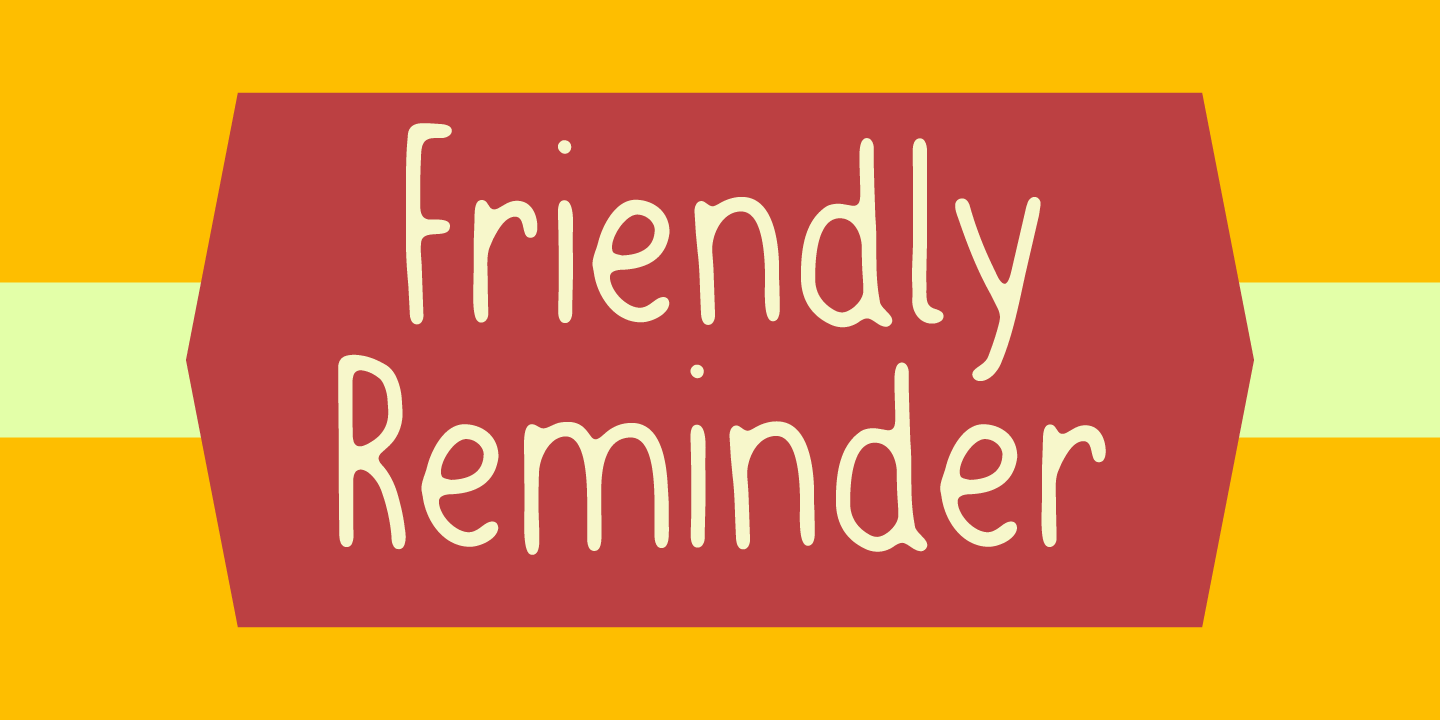
The Friendly Reminder Font excels in various design applications including gentle notification designs, warm reminder card layouts, friendly appointment communications, kind healthcare messaging, gentle billing notices, approachable customer service materials, caring reminder signage, soft notification systems, thoughtful memory aid designs, and considerate communication projects that demand friendly warmth and reminder sophistication.
What makes the Friendly Reminder Font exciting is its perfect embodiment of gentle communication and thoughtful reminder culture through letterforms that capture the essence of caring notifications and the warm approach of considerate messaging systems. This typeface demonstrates exceptional approachability through carefully crafted characters that suggest the gentle tone of friendly reminders, the caring nature of helpful notifications, and the thoughtful consideration that makes reminder communications feel supportive rather than demanding. The font's caring personality makes it perfect for healthcare organizations and customer service companies seeking to communicate gentle persistence, friendly helpfulness, and the kind of warm consideration that makes necessary reminders feel genuinely caring through typography that literally whispers with friendly consideration.
The Friendly Reminder Font family typically includes gentle weight variations that enhance the approachable aesthetic, featuring soft styling options and extended character sets optimized for notification communications and reminder applications. These family options often include caring alternates, gentle symbols, and thoughtful decorative elements that provide designers with comprehensive tools for creating authentically friendly typography that celebrates considerate communication while maintaining contemporary design appeal and professional credibility.
Customer service professionals and healthcare organizations consistently select Friendly Reminder Font Free Download for projects requiring typography that communicates gentle persistence and caring consideration. This typeface delivers exceptional performance in notification marketing, reminder branding, and caring communications where establishing warmth and creating supportive atmosphere is essential for positive customer relationships. The font's friendly character makes it particularly effective for healthcare and service applications. Download Friendly Reminder Font Free Download today to access this considerate typeface that transforms reminder communications with its gentle warmth and caring sophistication, creating compelling notification experiences that honor the importance of thoughtful communication while maintaining the friendly approach that makes necessary reminders feel genuinely supportive and authentically caring.